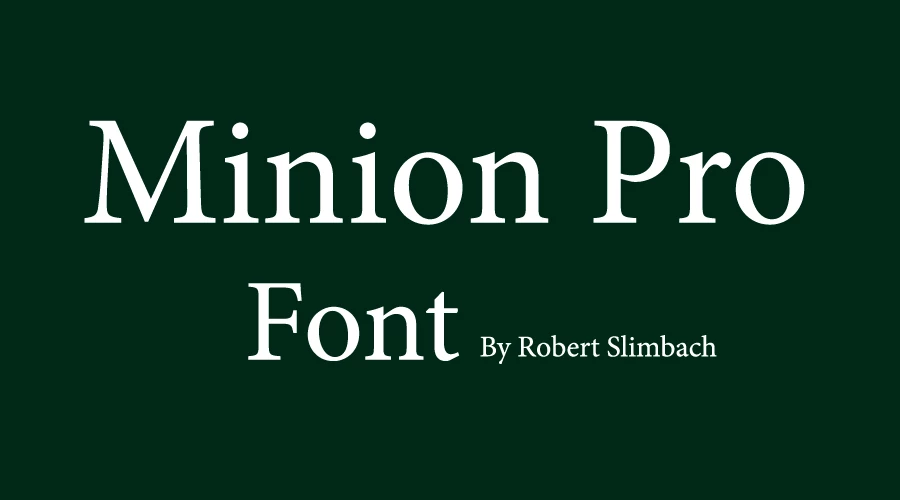
Minion font is a serif typeface font designed by Robert Slimbach and released through Adobe in 1990. The inspiration for Minion’s design came from the late Renaissance period. The main reason for being inspired by the late Renaissance period is its elegant typefaces which were eye-catching and readable.
Minion Pro is an OpenType update of the original Minion family, which was released in 2000. Times New Roman and Garamond are mostly similar to Minion Pro font. The Minion Pro family has 4 weights, each in Roman and italic. This amazing font won the Bukva:raz! 2001 award under the Greek category.
The minion font has a great typeface that’s why it can be used in various types of workplaces. Below are some of the things we can use this font for.
Official Purpose: Minion has an elegant typeface. For its elegant look, it can easily used in official documents and printing.
Designing Purpose: Minion is also perfect for designers. Designers can easily make logos, brochures, posters, presentations, book covers, and many more. This font is also very effective in creating websites.